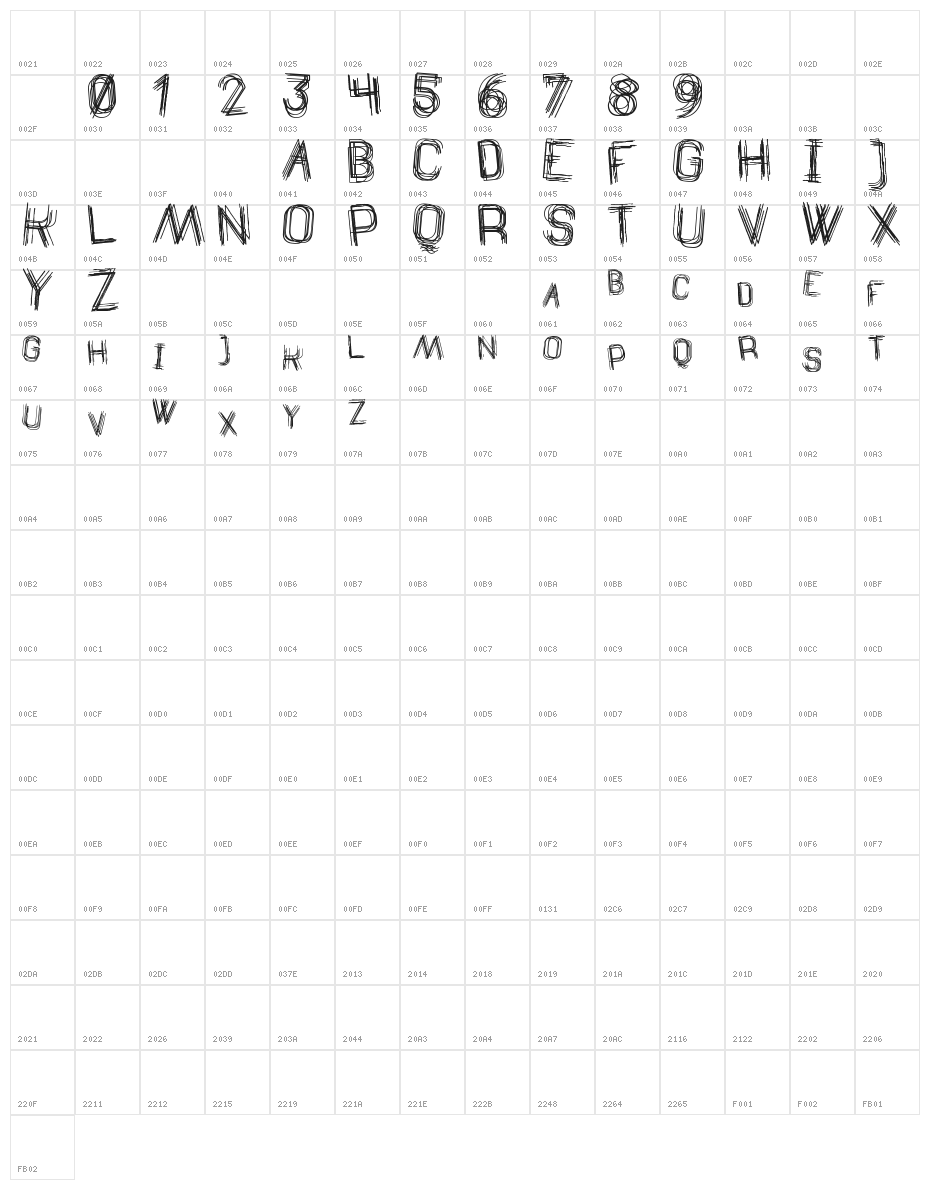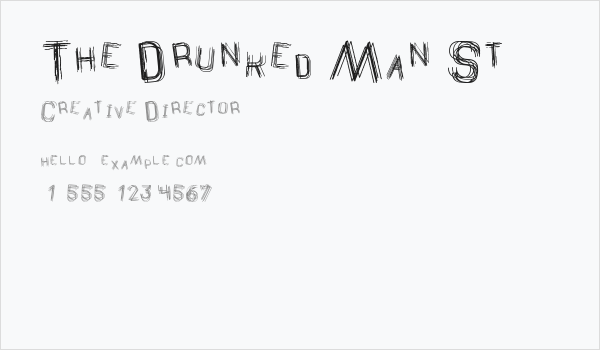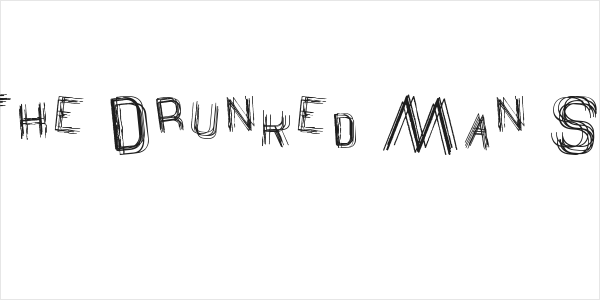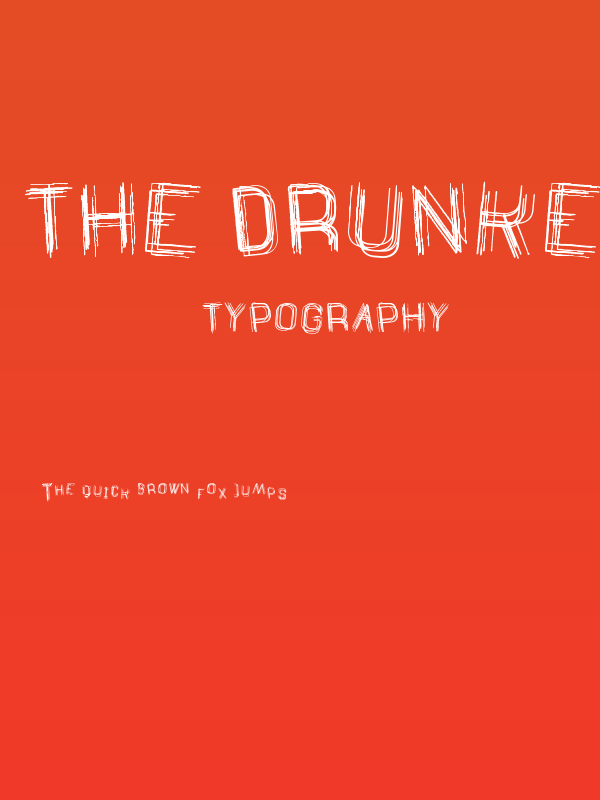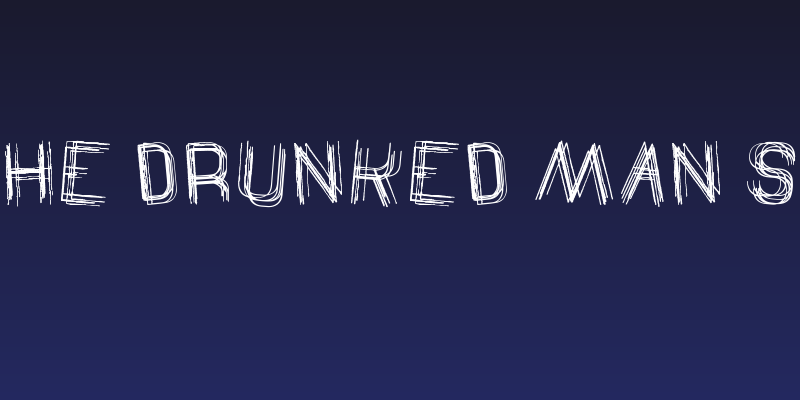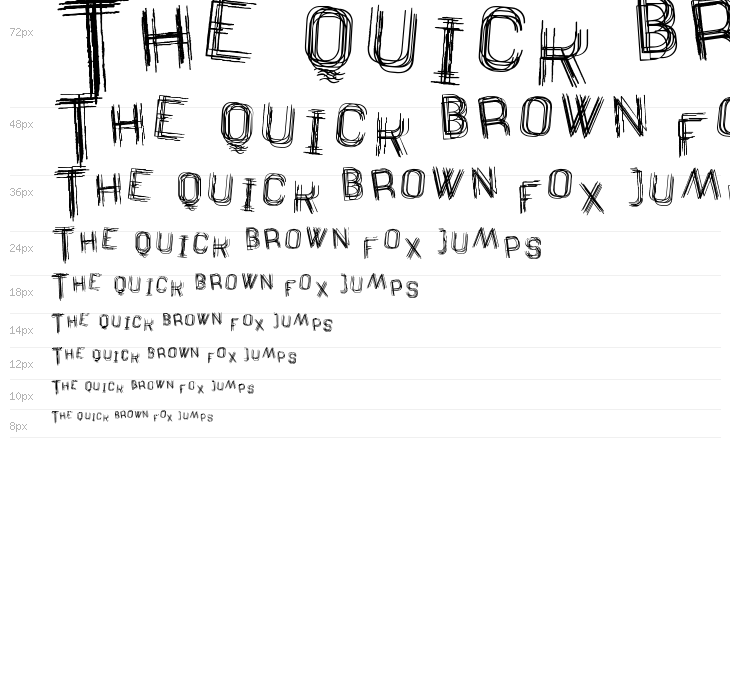
The Drunked Man St Font
The Drunked Man St Description
This font features a chaotic and sketch-like design, with each character appearing as if it has been hand-drawn multiple times over itself. The lines are uneven and give a sense of movement and energy, creating a dynamic and informal appearance. The uppercase and lowercase letters maintain this scribbled style, while the numbers and special characters follow suit, ensuring consistency across the entire set. The font's unique and artistic flair makes it stand out, ideal for projects that require a bold and unconventional look.
| Proposed Projects | Ideal for artistic projects, informal posters, creative branding, and any design needing a bold, unconventional look. |